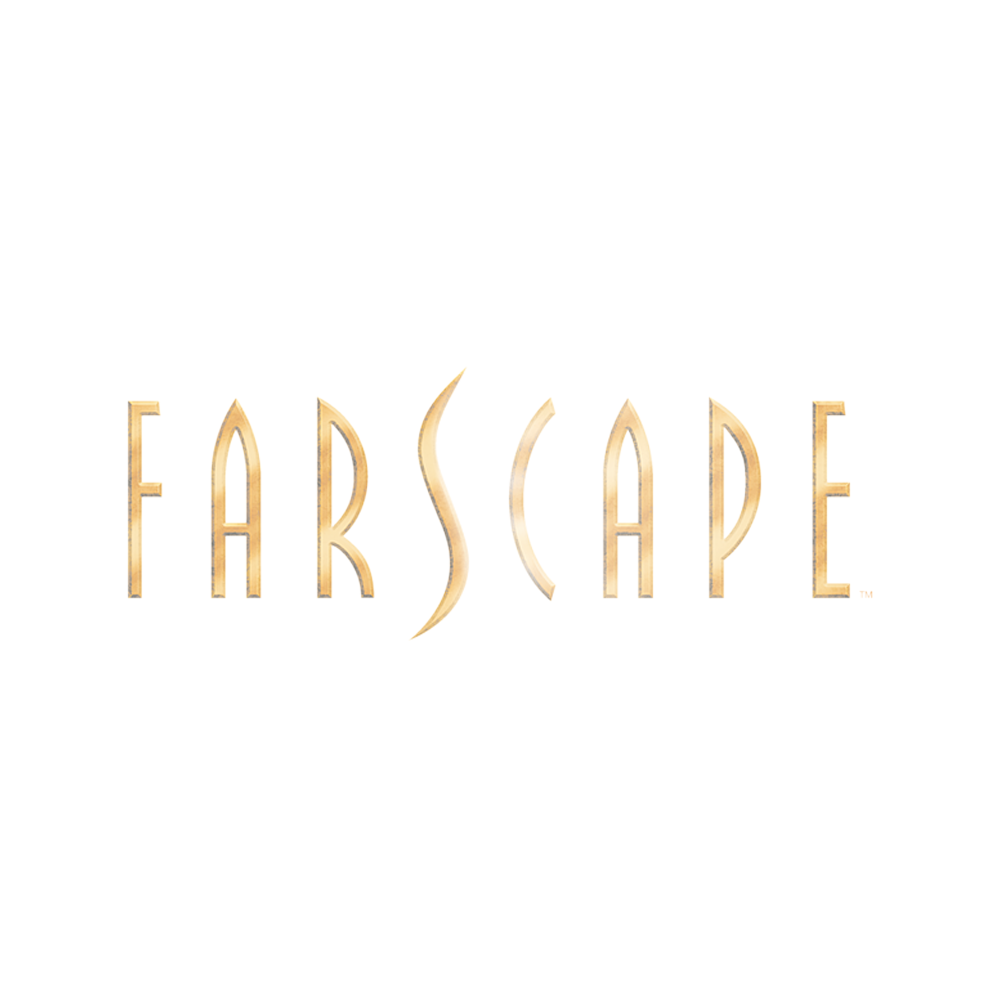
Farscape Font
Fonts in UseFarscape is a science fiction television series that follows the adventures of astronaut John Crichton, who becomes stranded in a distant part of the universe and must navigate the politics and dangers of alien civilizations to find his way back to Earth.
Farscape likely uses the Pritchard font, a condensed sans-serif inspired by 1920s Soviet Constructivist styles. A fan-made font, Farscape, can replicate the show's lettering and is available for download, including the iconic Farscape "S" from the Fonts Used Section.